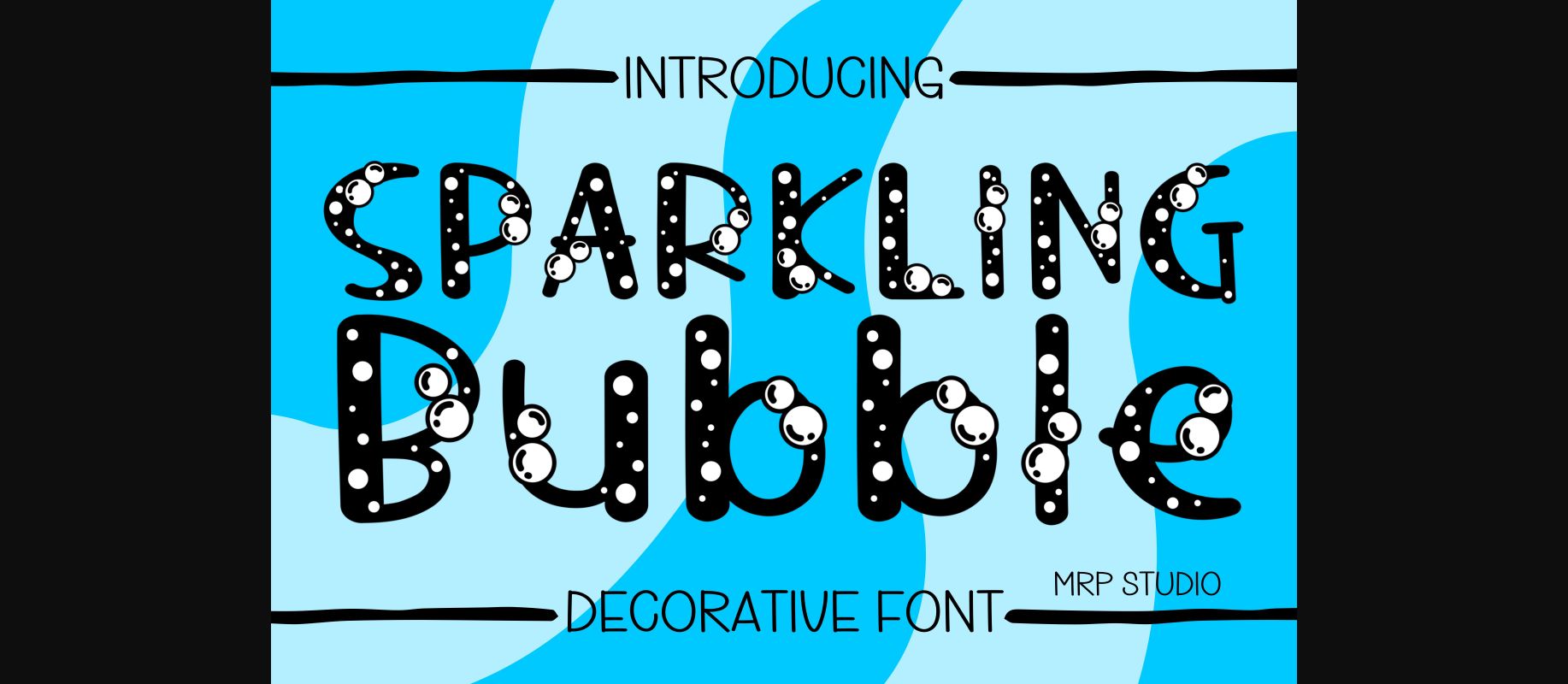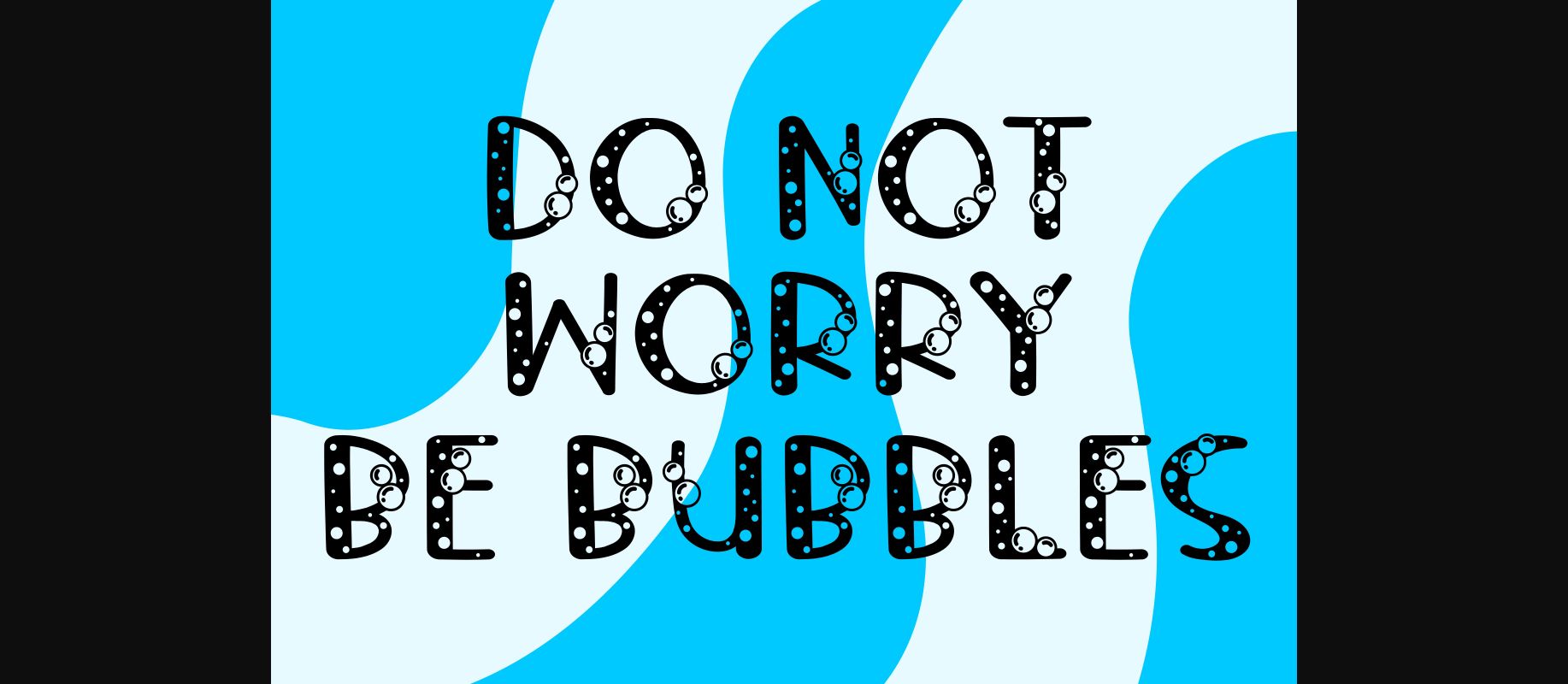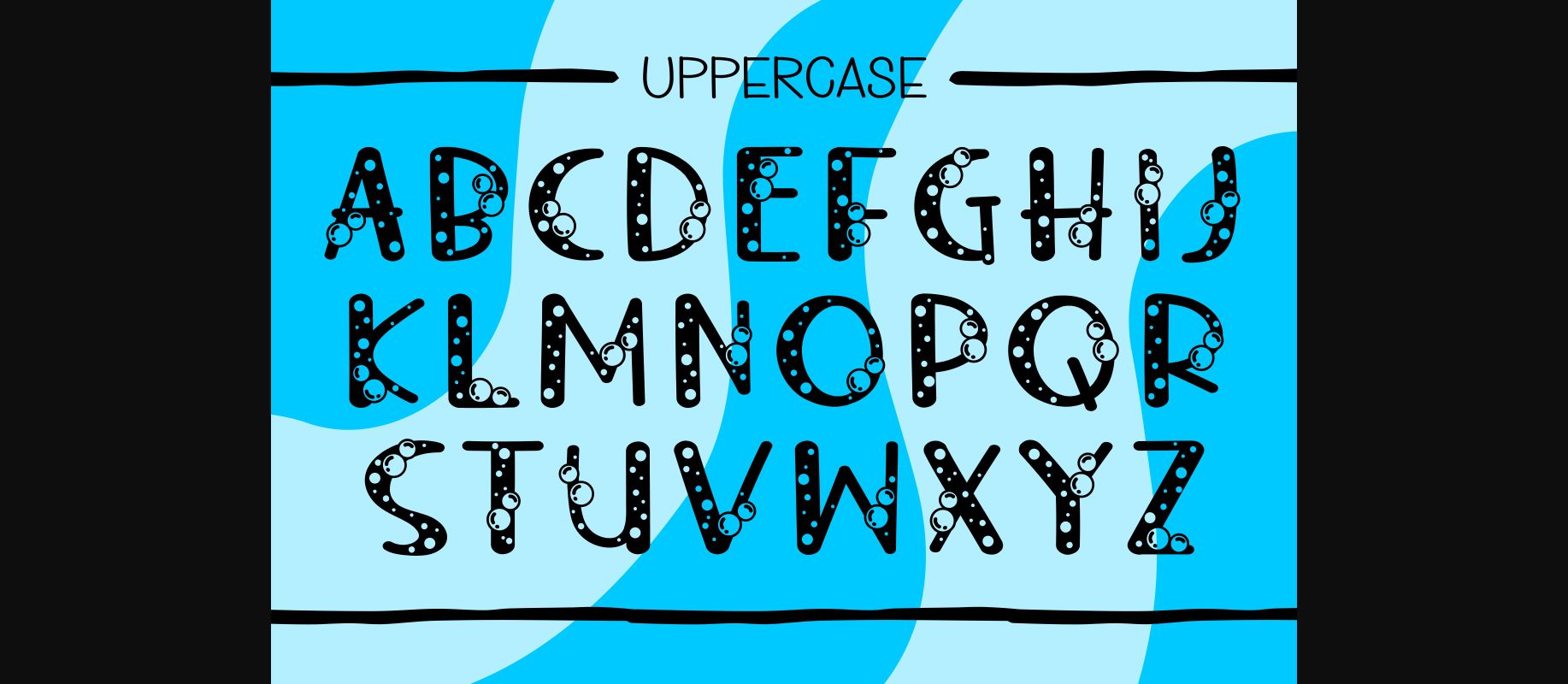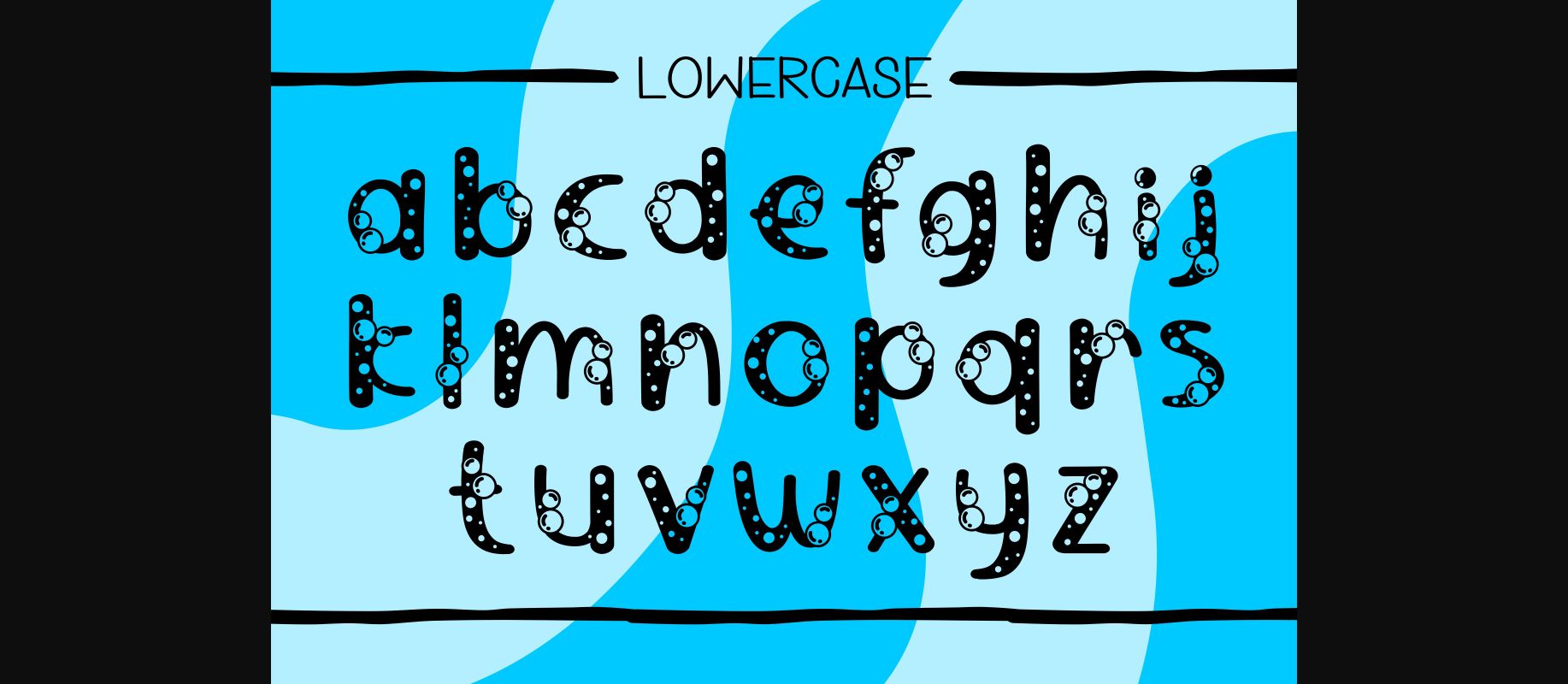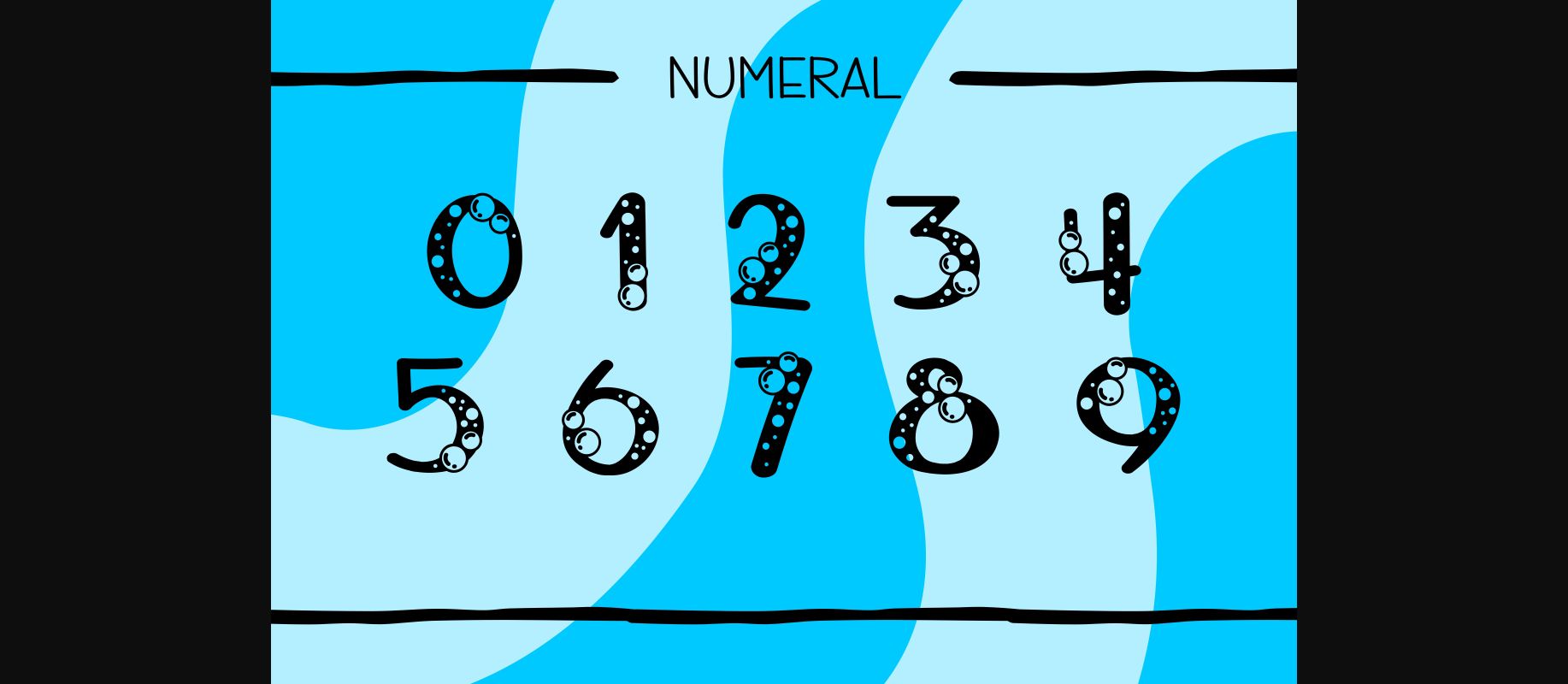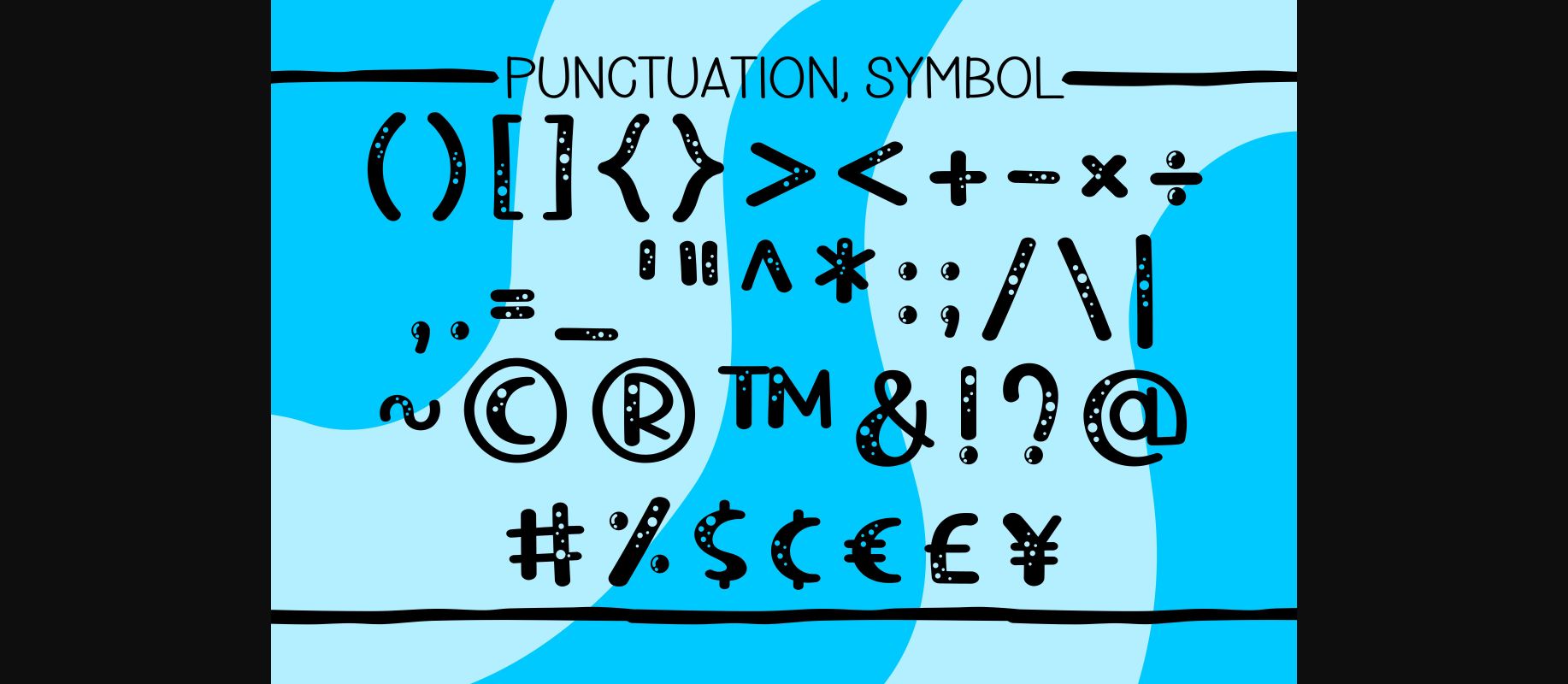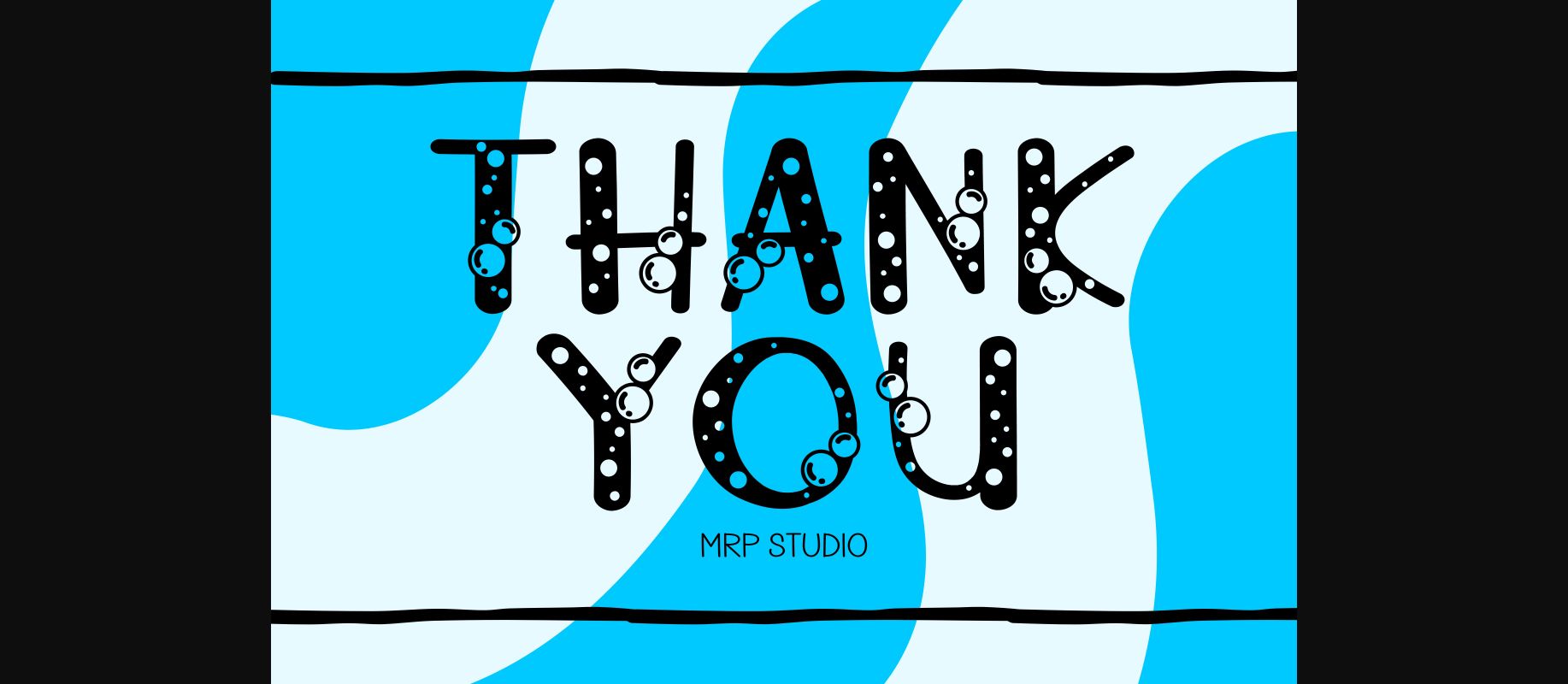
Sparkling Bubble Font
About Sparkling Bubble Font
Sparkling Bubble is an adorable decorative font. It would be perfect for your child-related projects such as back-to-school, or birthday party decorations, and for any topic that requires a bright and fun touch. Add it to your creative ideas and notice how it makes them stand out!